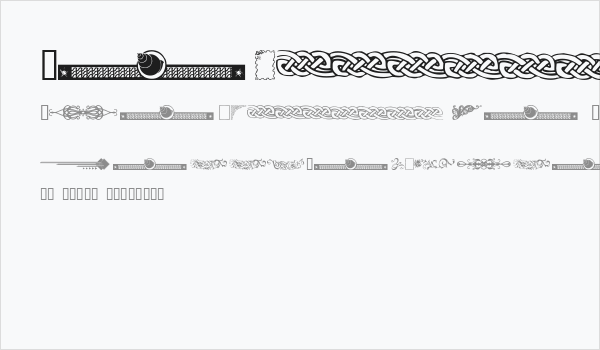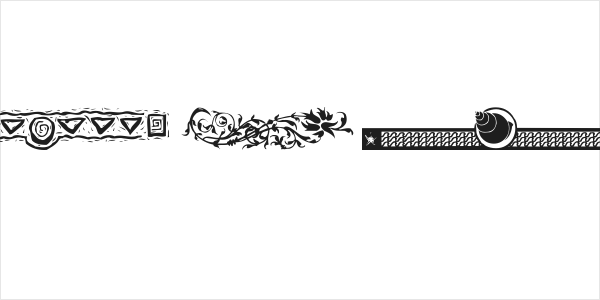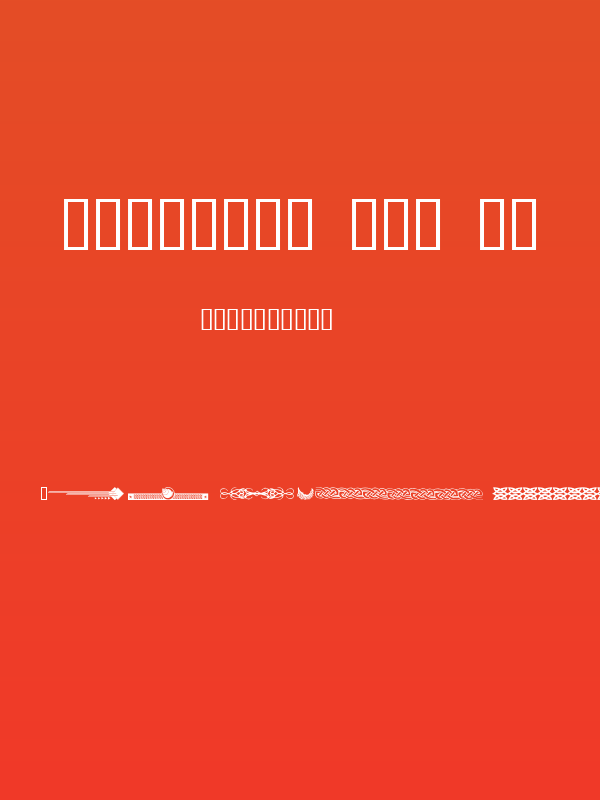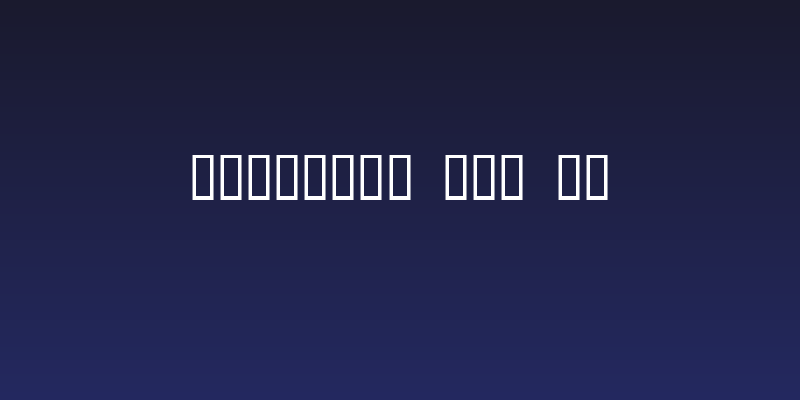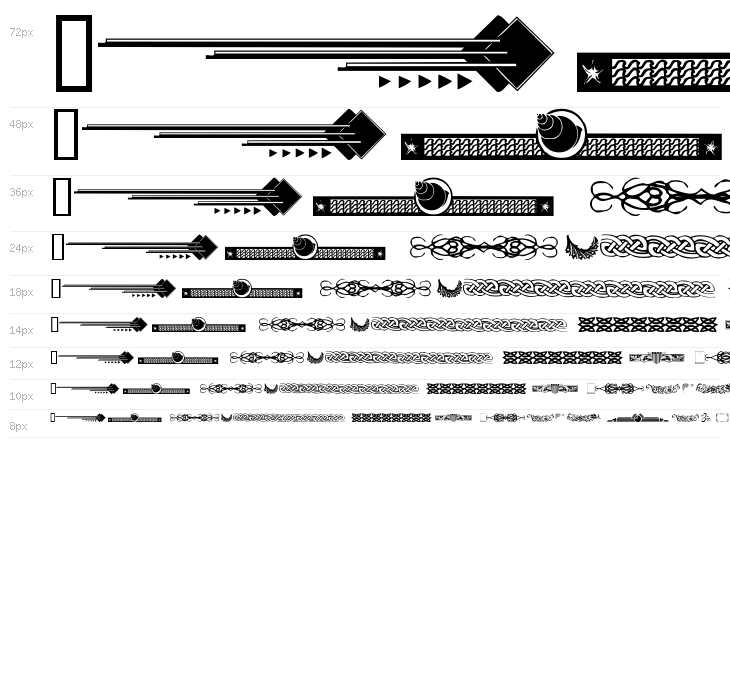
Designer Mix II Font
Designer Mix II Description
This font features a mix of ornamental and decorative glyphs, including intricate flourishes, borders, and embellishments, rather than standard alphanumeric characters. The style is highly decorative, with complex line work and vintage-inspired motifs, suitable for adding visual interest to designs.
| Overall Style | Decorative, Vintage |
| Use Case | Borders, embellishments, decorative accents |
| Proposed Projects | Invitations, certificates, vintage-themed posters, decorative borders, scrapbooking, and artistic projects. |